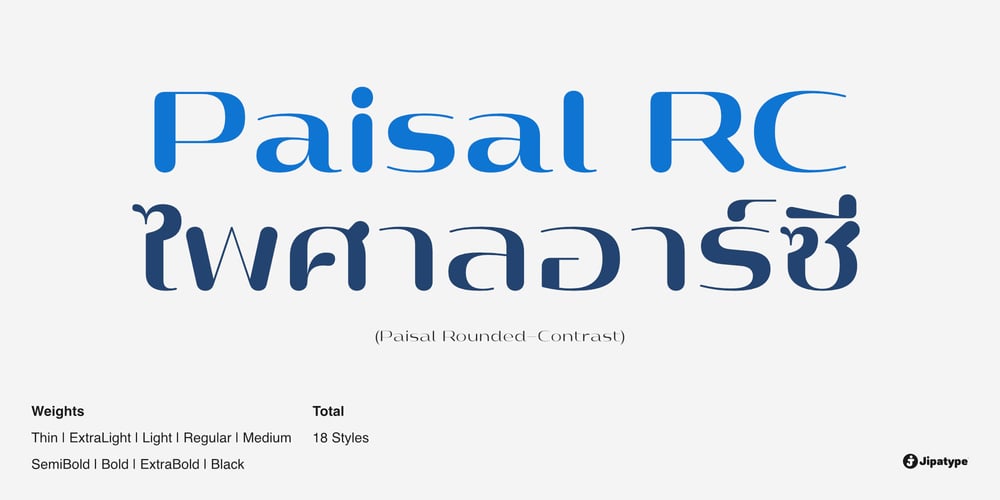
Paisal RC Font Family was designed by Anupap Jaichumnan and published by Jipatype. Paisal RC contains 18 styles and family package options. The Paisal RC (Rounded-Contrast) typeface is a font developed as an extension of the Paisal Rounded and Paisal Contrast typefaces, combining the two fonts together. As a result, the structure of this typeface has both rounded and contrasting characteristics. This typeface consists of 18 styles, covering weights from the thin to the black, supporting both Latin 1 and Thai character sets. The Paisal RC typeface is suitable for use in various print materials, both online and offline, especially for headlines in beauty magazines, beauty clinics, spas, and other related categories.